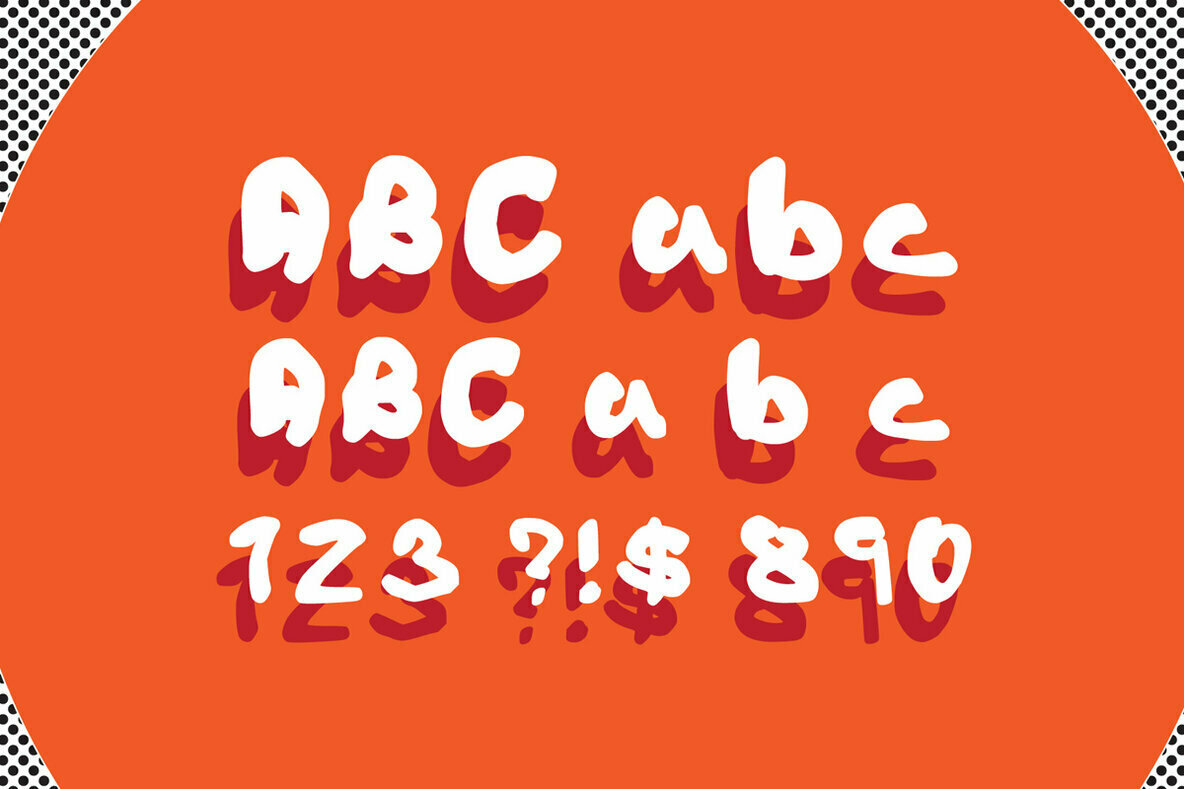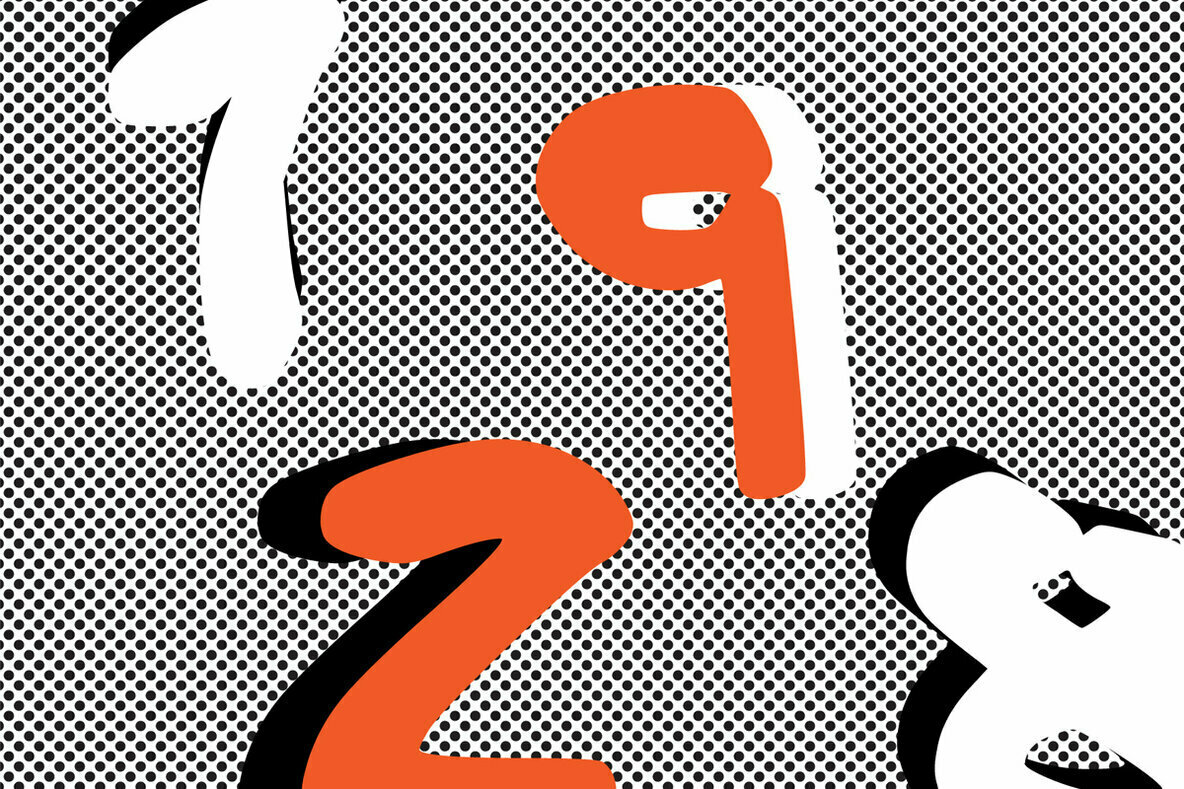
Mean Team Font
Mean Team Regular
Mean Team is a graffiti, streetwise inspired font. Best used for display it also contains lowercase, numbers and symbols. Use it to create beautiful stationary art, eye-catching social media posts, and much more!